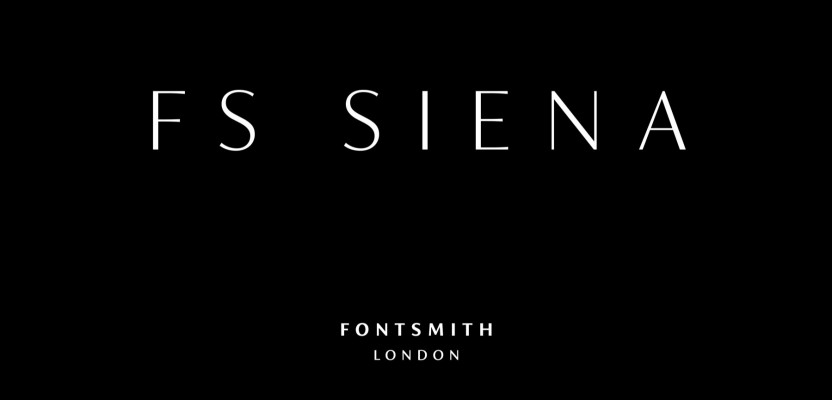
You can’t hurry a good typeface. All that sketching, drawing, honing, editing, balancing… Then there are the uppercase and italics to perfect, and different weights. Sometimes, it can take years. Few typefaces, though, would have been in gestation for quite as long as FS Siena, the new contrasted sans serif face from boutique type foundry, Fontsmith.
With its strong, upright stance, contrasting strokes and blend of generous, classical proportions with modern, economical lines, FS Siena is tailor-made for the kind of high-end brands for whom heritage and modernity go hand-in-hand. And like many of those brands in the worlds of fashion, cosmetics and hospitality, FS Siena is all the better for its extended evolution.
The typeface first saw the light of day some 25 years ago, when, at the tender age of 18, Fontsmith founder Jason Smith drew out the raw letterforms with a Rotring pen while still at art college. After his diploma show, the typeface was filed away on Jason’s computer. Until 18 months ago. ‘I’ve always wanted to do something with it,’ says Jason. ‘Phil Garnham (Jason’s co-director), has always rolled his eyes whenever I’ve mentioned it. But we see so much today that is samey. I wanted to bring some elegance back and develop a full set of weights that brands can use across a range of media, design and advertising.’
FS Siena is a contrasted sans serif typeface, blending classical elegance and modern simplicity. Contrasted sans faces first appeared in Roman inscriptions and can be seen in lettering from the Art Deco and Art Nouveau periods. They gained more prominent popularity in the 1950s, when designers such as Hermann Zapf, Jose Mendoza y Almeida and Enric Crous-Vidal started exploring the idea of sans serifs influenced by Roman inscriptional lettering. Their typefaces were all interpretations of classical models re-rendered with a modernist, sans serif sensibility.
When student Smith first committed his typeface to tracing paper, his starting points were Roman stone-carved lettering and the contrasted sans face designed by Hermann Zapf in the 1950s, Optima. Jason drew his own alphabet, instinctively adjusting the letterforms according to ‘what felt right’. When this became the basis for a new contrasted sans, he and Fontsmith designer Krista Radoeva were determined to preserve its subtly nonconformist and eclectic character.
The kind of contrasting thick and thin strokes once cut into stone have been honed and modernised, and given a Fontsmith twist. ‘With a contrasted sans,’ says Krista, ‘it’s about choosing the right balance of the letters together, rather than having all the letterforms following exactly the same pattern.’
There are individual components throughout the character set that all add flavour, and need to be balanced in order to work together, as in any great dish. The smooth connection of the ‘h’ ‘m’ ‘n’ and ‘r’ contrasts with the corners of the ‘b’ and ‘p’. The instantly recognisable double-storey ‘a’ – the starting point of the design – contrasts with the single-storey ‘g’ and the more cursive ‘y’. And only certain characters – ‘k’, ‘w’, ‘v’, ‘x’ in the lowercase and ‘K’ ‘V’ ‘W’ ‘X’ ‘Y’ in the uppercase – have curved strokes.
‘The contrasted sans is a very unusual style,’ says Krista. ‘The eye expects to see a serif at the end of the thin stems so you need to compensate with the subtle curves and flares found in some letters and a little extra weight in the stroke endings of others. It’s something of an optical illusion.’
The seven weights and italics for FS Siena were developed by Krista and Jason to complement his original roman upper and lower-case alphabets. The lighter weights, from Thin to Light, are ideal for headline and display. The range from Regular to Bold can also be used at smaller sizes as the contrast of thick and thin is low. For all weights to be usable across the full range of media and sizes, it was important to make sure that that none of the strokes were too thin.
Many of the italic letterforms are built differently to their roman counterparts: there’s a single-tier ‘a’, a looped ‘k’ and connections more towards the middle of stems, such as in the ‘m’, ‘n’ and ‘u’. These distinctions, along with generally much narrower forms than the roman, give the italics extra emphasis within body copy, where the two are side-by-side. In editorial, especially, the combination can be powerful.
It’s been a long time coming, but with its heady mix of elegance and quirky charm, FS Siena is worth the wait.